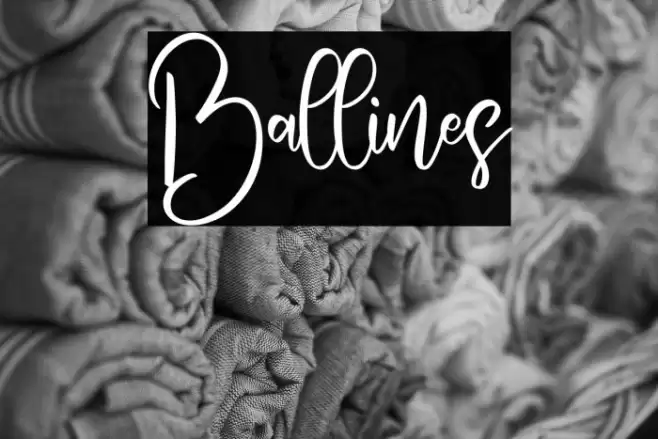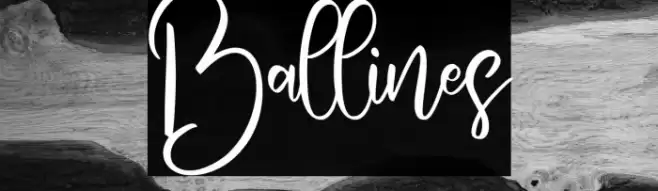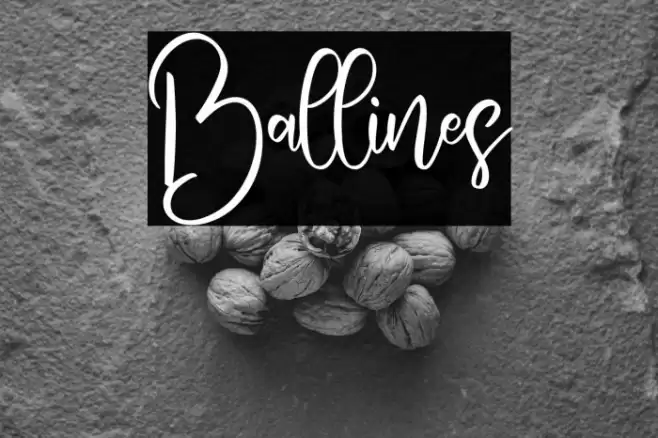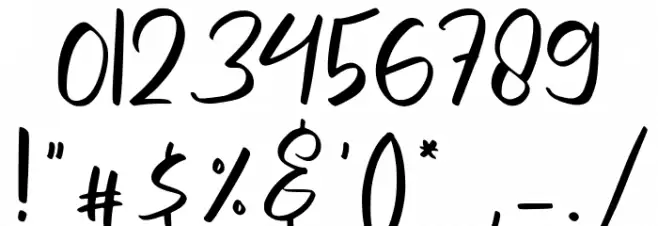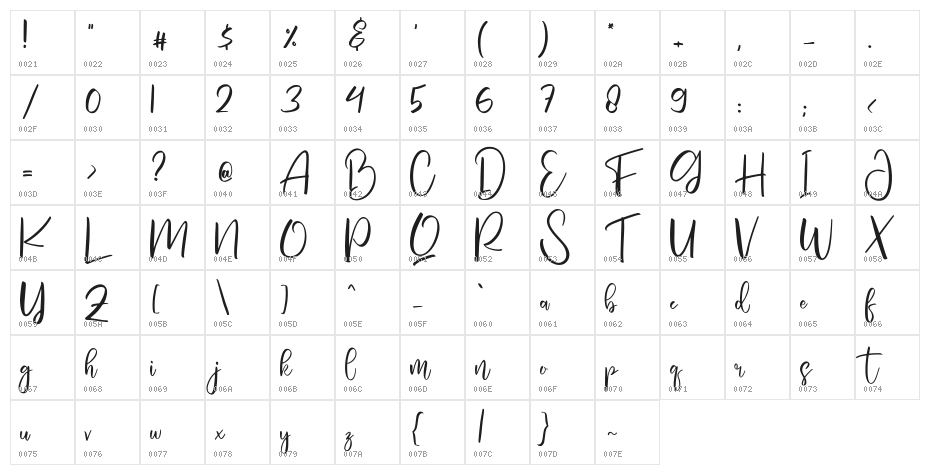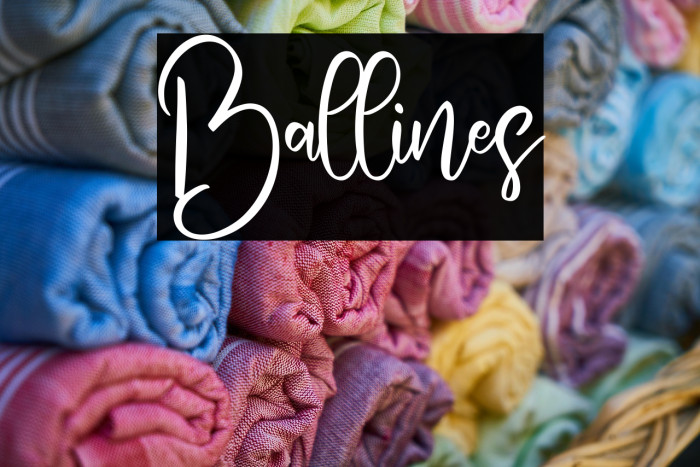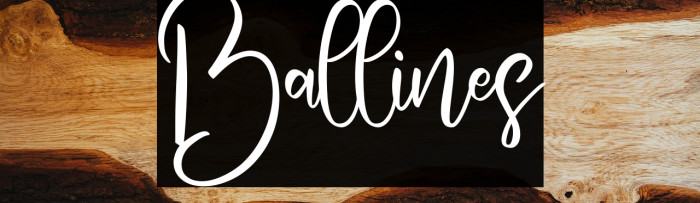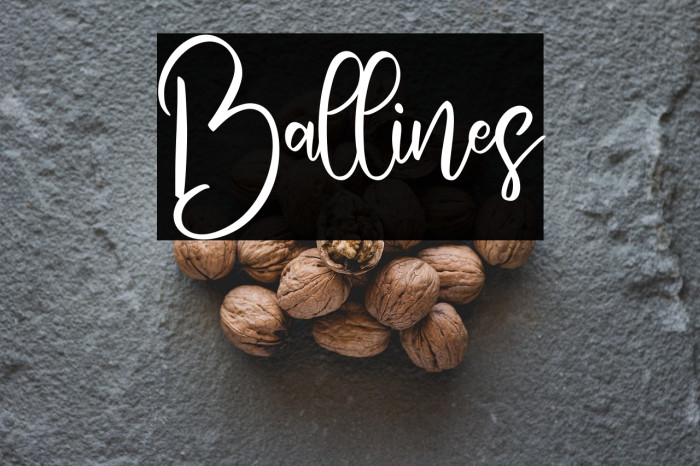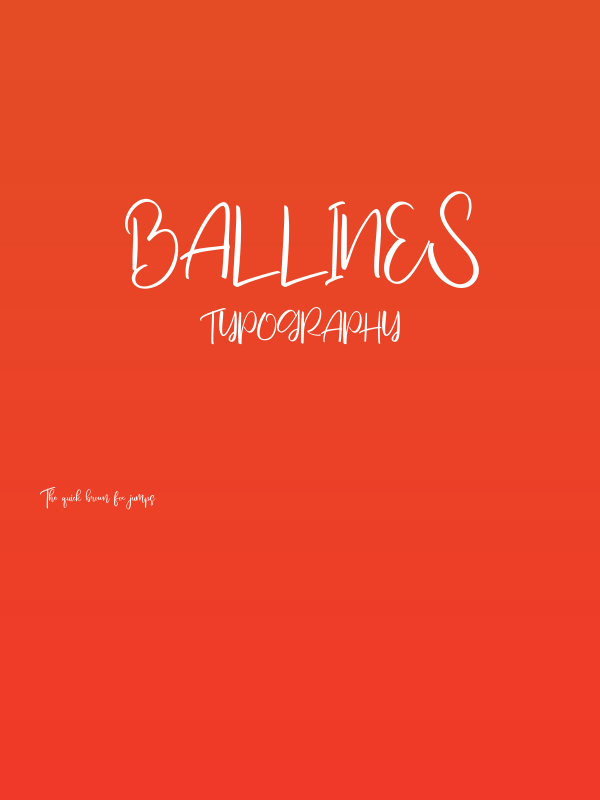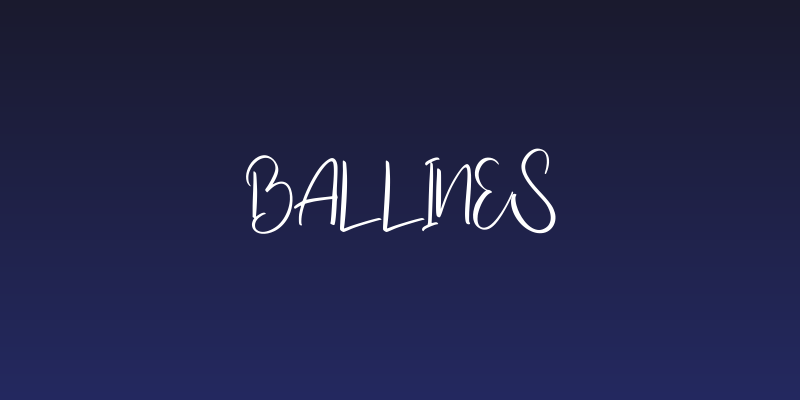
Ballines Font
Ballines Description
This font features a lively and expressive handwritten style, characterized by its fluid and dynamic strokes. The uppercase letters exhibit a playful yet elegant form, with varying stroke thickness that adds a sense of movement and energy. The lowercase letters maintain a consistent flow, enhancing the font's overall cohesiveness. Numbers and special characters are crafted with the same attention to detail, ensuring versatility across different uses. The font's unique personality makes it suitable for creative projects that require a personal touch.
A lively handwritten font with dynamic strokes and playful elegance from Regular fonts.
- Proposed Projects: Ideal for greeting cards, invitations, branding, and social media graphics.
- Use Case: Logos, Headlines, Invitations